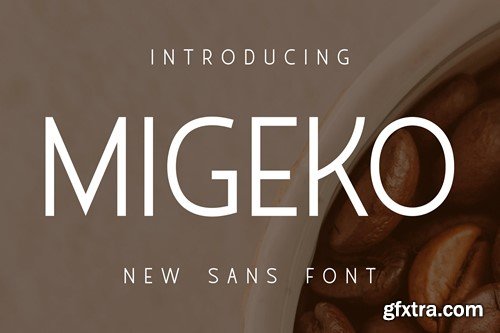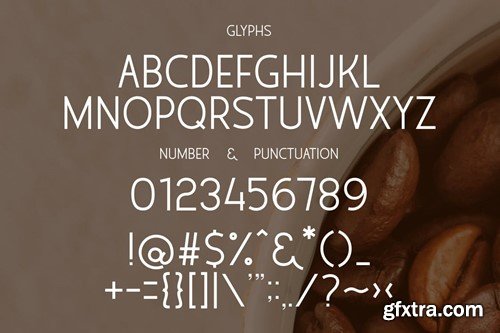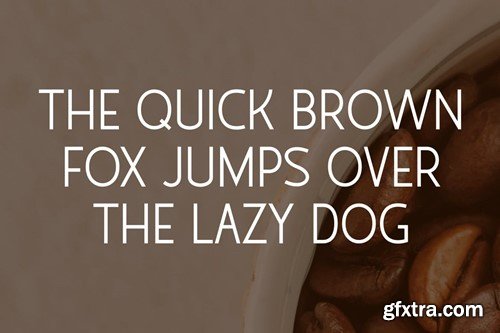
Migeko Font HQ9L73U
Migeko Font
Introducing a refreshed interpretation of the classic sans serif font, where an artistic freedom has been embraced. Special attention has been given to the letter K, employing innovative enhancements for a unique appeal. Moreover, deviation from uniform sizing has been implemented purposefully to provide a more organic and natural aesthetic. This reimagined font is perfect for those seeking a touch of nonconformity and a break from the standard mold. Unleash your creativity with this chic and modern sans-serif masterpiece. available in .OTF & .TTF formats. Thank You